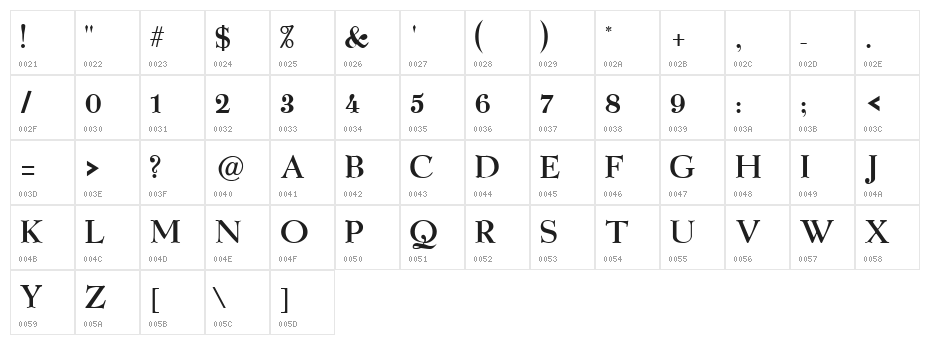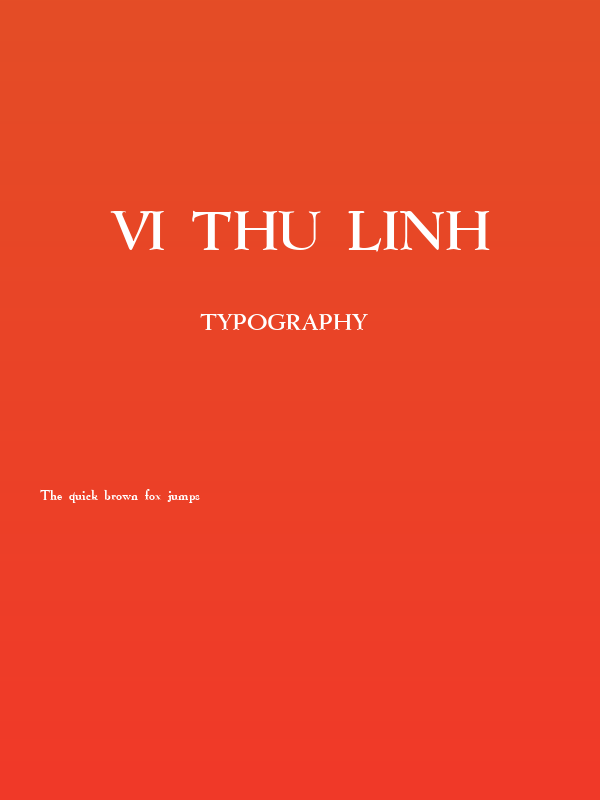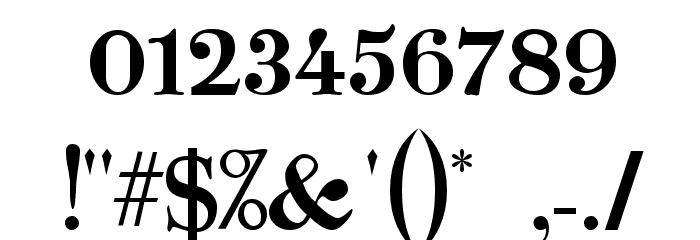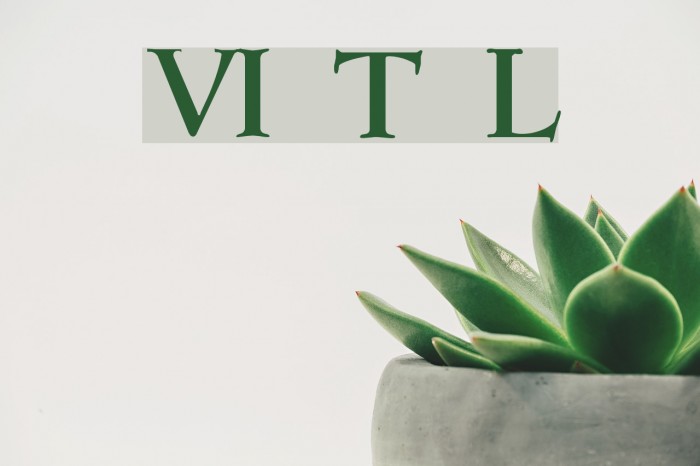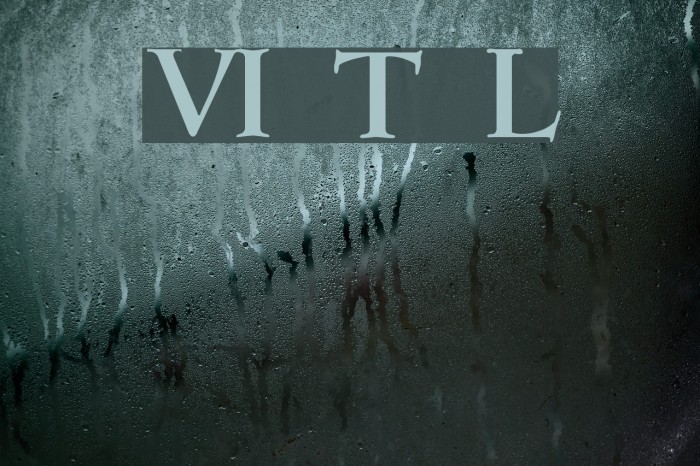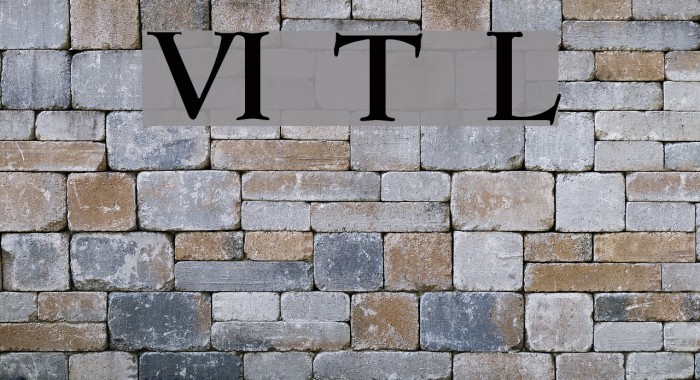
VI Thu Linh Font
VI Thu Linh Description
This font exhibits a classic serif style with elegant and refined strokes. The uppercase letters are bold and commanding, while the lowercase letters maintain a consistent and harmonious flow. The numerals are clear and distinct, ensuring readability. Special characters are designed with attention to detail, complementing the overall aesthetic. The font's contrast in stroke thickness adds to its sophistication, making it suitable for formal and traditional applications.